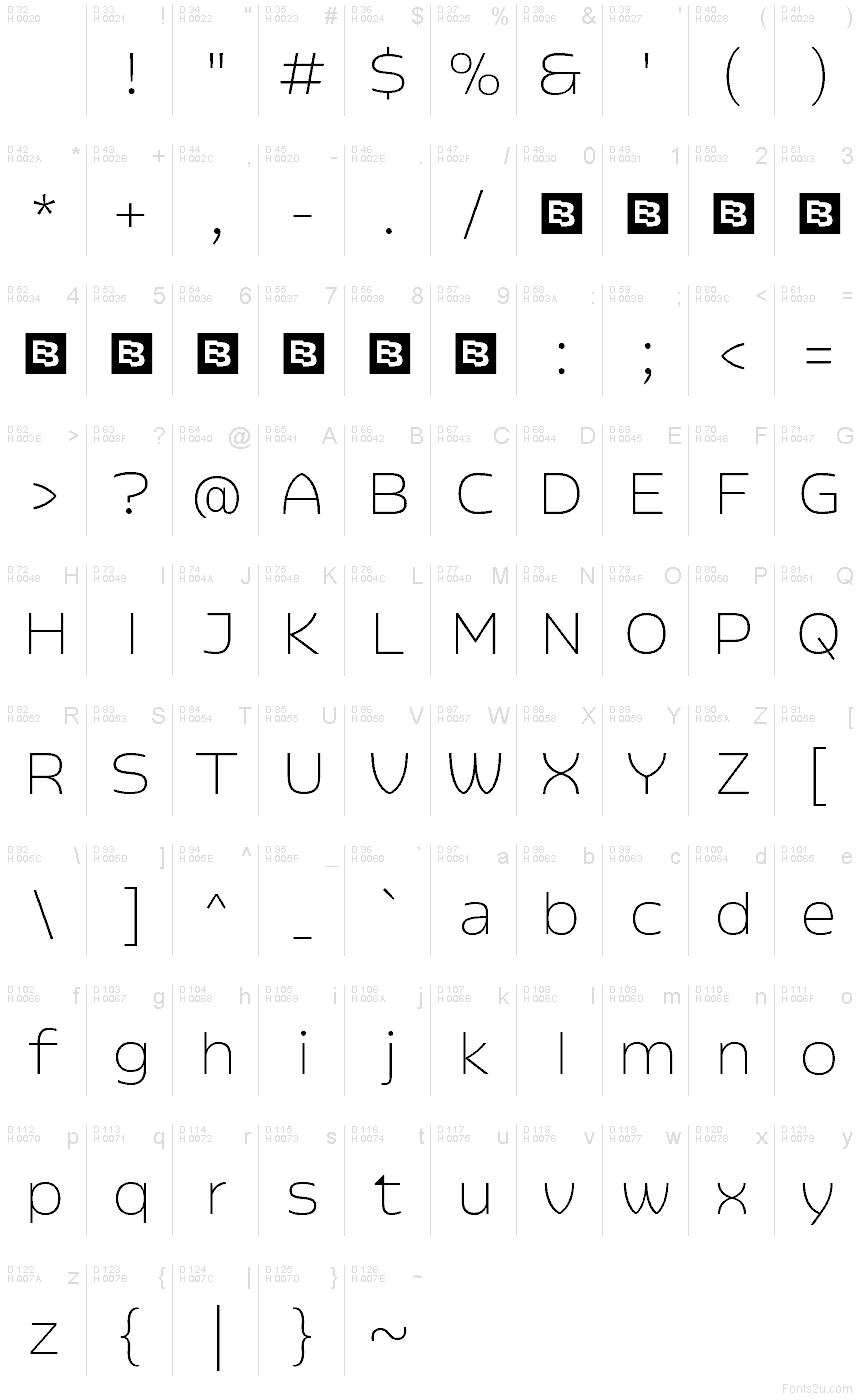
Pocas Trial Thin
Pocas Thin font by Eko Bimantara is a free sans serif typeface that solves the usual “too wispy to read” problem of ultra-light fonts. Part of the Pocas family, it carries airy strokes with open counters and just‑soft‑enough corners, so headlines feel refined without disappearing. The spacing is generous and even, giving an elegant, weightless rhythm that still holds together on modern screens.
Using Pocas Thin, you’ll get crisp, breathable titles for fashion branding, lookbooks, portfolio sites, tech landing pages, event posters, and minimalist packaging. This free font shines when set large with a touch of extra tracking, letting those clean curves glow. For body copy, pair it with a sturdy grotesk to ground the layout and keep reading effortless.